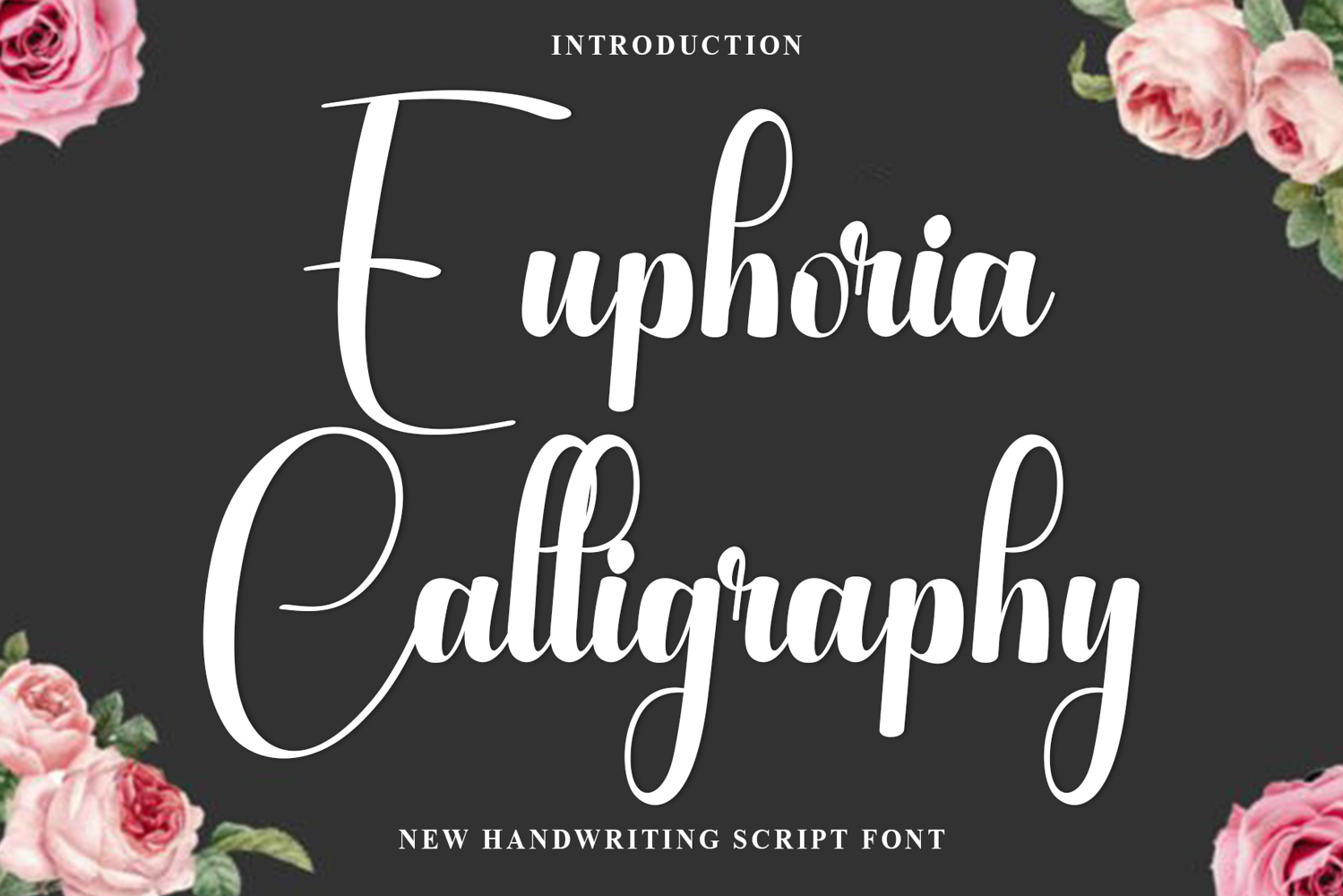
Euphoria Calligraphy
Euphoria Calligraphy is a beautiful and eye-catching font designed with a soft, unique touch. Its distinctive strokes give it a special character, making it meaningful and versatile for future use. With various characters, it’s perfect for design projects, crafts, and other creative works.